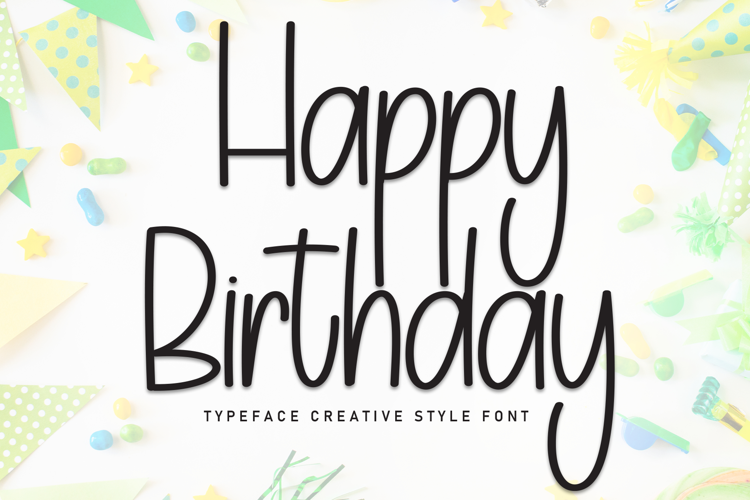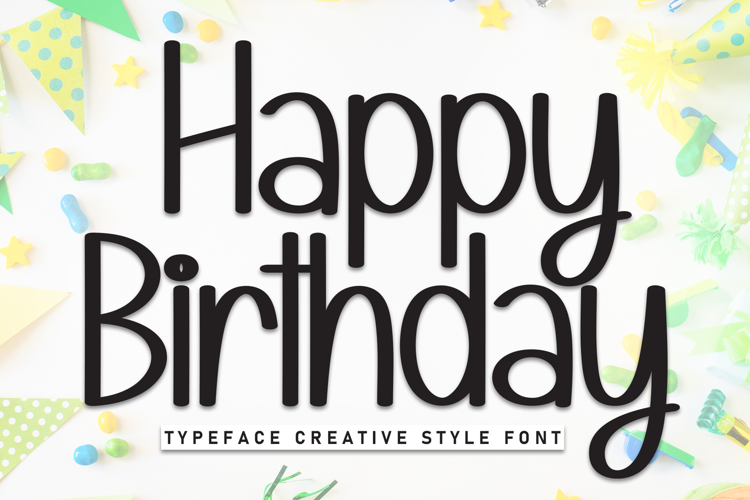
Happy Birthday Font Frosted Cake Lettering ABC OTF Type
Celebrate in style with the Happy Birthday Font! This delicious display typeface is designed to look like miniature frosted cakes, complete with colorful icing, decorative layers, and glowing birthday candles on top of every character. It is the ultimate choice for birthday party invitations, bakery branding, cake topper designs, and festive social media graphics.
The thick, bubbly "cake" base and whimsical candle accents give your text a 3D, celebratory feel that pops off the page. Whether you are creating custom birthday banners, designing sweet treats packaging, or crafting personalized digital cards, the Happy Birthday Font brings a professional, joy-filled aesthetic to any milestone event.
Why Your Designs Will Stand Out:
Frosted Cake Design: Each letter and number is uniquely illustrated with pastel icing, cake layers, and lit candles for a festive look.
Playful Party Aesthetic: The chunky, rounded silhouettes create a friendly and fun vibe perfect for kids and adults alike.